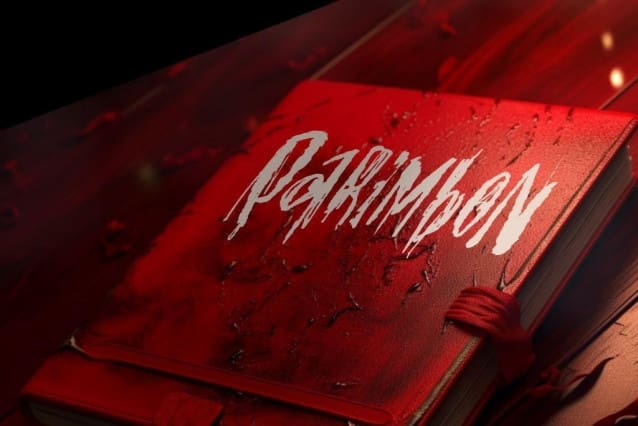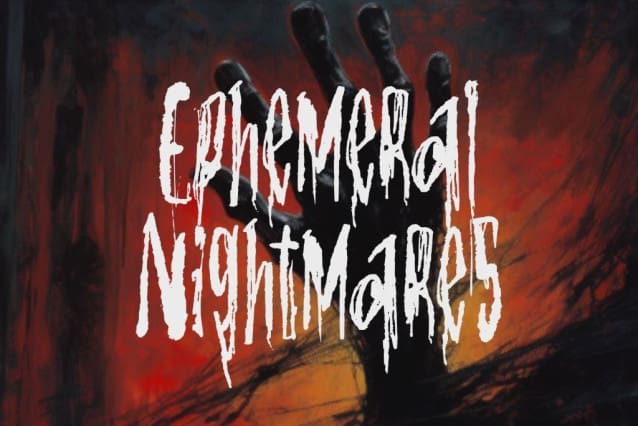
Ephemeral Nightmares Font
Ephemeral Nightmares Font is a horror font with a sleek texture resembling bloody strokes. Each letter has sharp and irregular lines, as if painted with fresh, dripping blood. Every letter exudes a haunting and dark ambiance, creating an eerie and tense impression. When used in designs, “Ephemeral Nightmares” effectively conveys terror and uncertainty, setting the perfect atmosphere for horror and mystery projects.